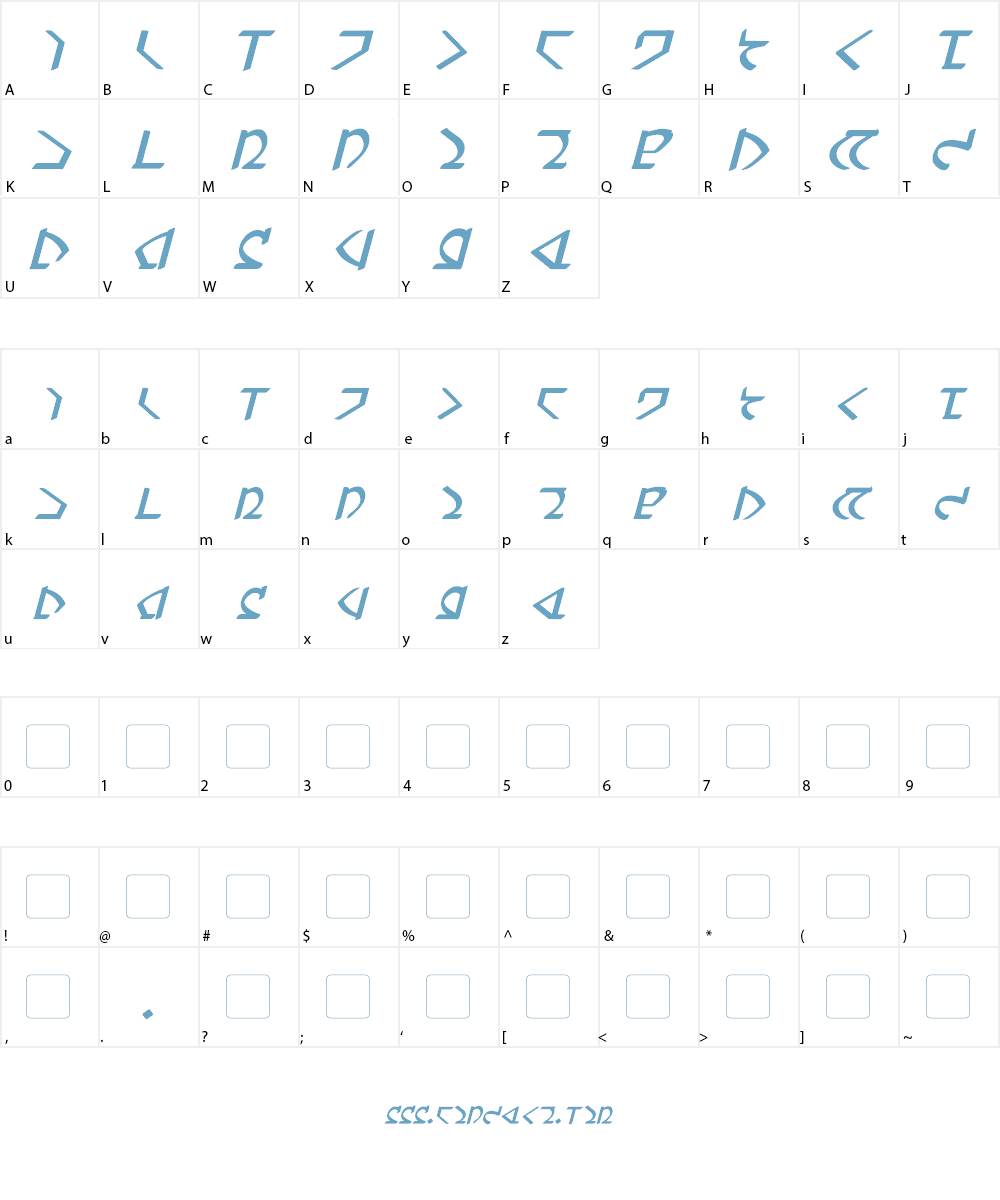
Dwemer is the written script for the Deep Elves of Bethesda Softwork’s Elder Scrolls series of role-playing games. The face is heavily runic with a very slight Celtic flare. Includes all canon characters. Includes regular, bold, italic, and bold-italic weights.